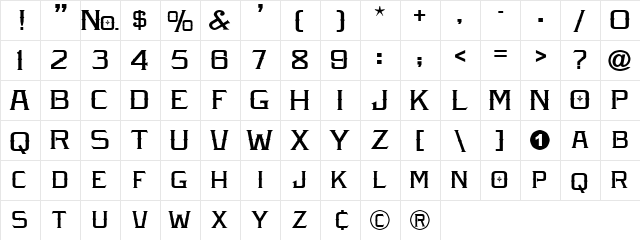
LHF Amarillo Regular
Design Context for LHF Amarillo Typeface
LHF Amarillo takes a measured approach to typography — its balanced proportions and neutral character make it a reliable workhorse for both digital and print work.